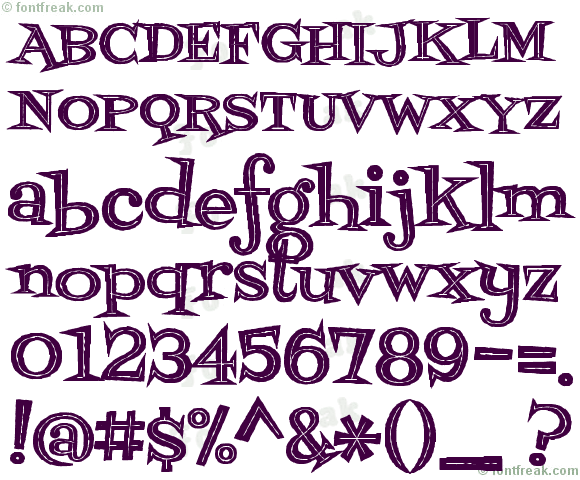
Fontdinerdotcom Jazz Dark
About Jazz Dark
Jazz Dark, created by Font Diner, is a striking display font that embodies the lively spirit of jazz music while maintaining a sophisticated aesthetic. This freeware typeface features a unique blend of bold, rounded characters that exude a sense of elegance and playfulness. The strokes are thick with a moderate contrast, allowing for an eye-catching appearance that stands out in any design context. The letterforms are well-spaced, ensuring readability while still conveying a distinct personality. Decorative elements, such as exaggerated curves and dynamic angles, enhance its visual appeal, making it perfect for designs that call for a touch of flair.
This font is particularly well-suited for a variety of creative projects, including vibrant restaurant menus that seek to capture the ambiance of a lively dining experience, engaging concert posters that entice audiences with their rhythmic design, stylish branding for jazz clubs, and invitations to upscale events where a sophisticated yet playful touch is desired. Additionally, it can elevate the visual impact of marketing materials for small businesses looking to convey a unique identity.
The target audience for the Jazz Dark font includes graphic designers, small business owners, content creators, and anyone in need of a typeface that adds character to their projects. Its versatile design allows it to be utilized in both print and digital formats, making it a valuable addition to any designer's toolkit.